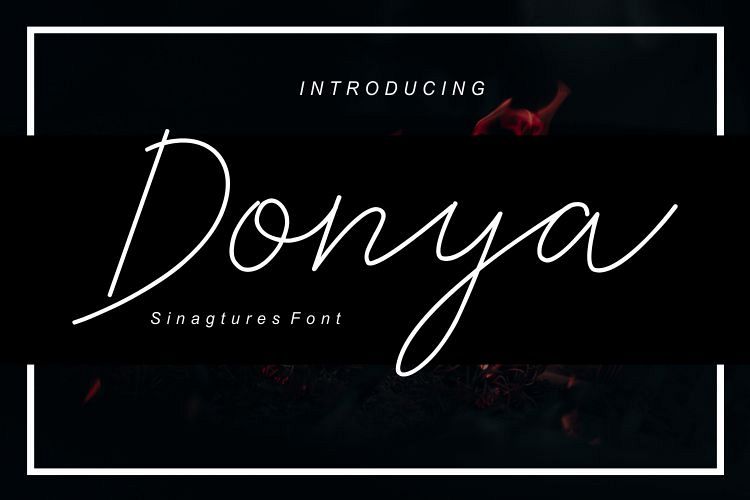
Donya
Donya original fonts handwritten beautiful and luxurious, suitable to make your design more elegant, such as making invitations, business cards, signatures, magazines, books and others